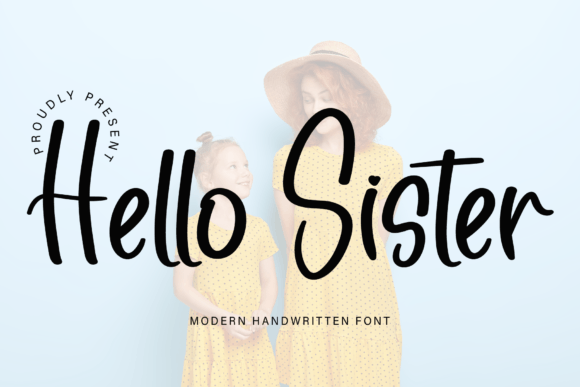
Dive into the world of Hello Sister, a script font family that exudes charm, authenticity, and effortless elegance. Inspired by the beauty of handwriting, this font captures the essence of warm, heartfelt communication, making it perfect for adding a personal touch to your digital creations.
With its sweeping strokes and graceful curves, Hello Sister effortlessly elevates your designs, bringing a touch of sophistication and artistry to every project. Whether you're crafting social media posts, designing logos, or creating eye-catching headlines, Hello Sister seamlessly blends into your vision, enhancing its impact and leaving a lasting impression.
Unleash your creativity and explore the endless possibilities of Hello Sister. Its versatility knows no bounds, making it a go-to choice for a wide range of projects. From heartfelt greeting cards and invitations to stylish social media posts and captivating headlines, Hello Sister effortlessly adapts to your needs, adding a touch of magic to every creation.
Embrace the beauty of handwritten fonts and immerse yourself in the world of Hello Sister. Let its elegant strokes and natural charm captivate your audience, leaving them with a sense of warmth and connection. Experience the joy of authentic expression as Hello Sister breathes life into your digital designs, transforming them into masterpieces that resonate with your audience.